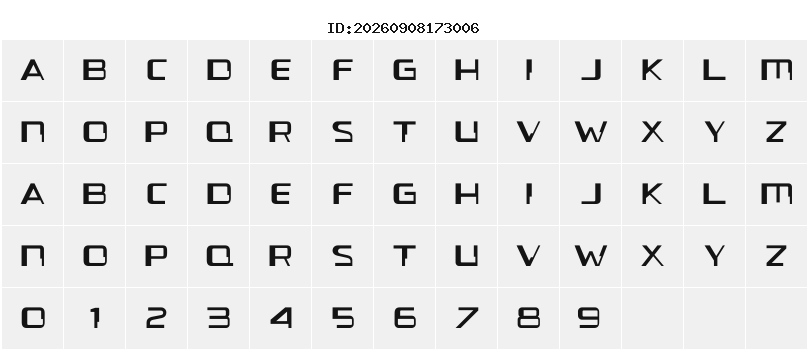
About Voya Nui.ttf
Voya Nui.ttf is a modern, elegant sans-serif font designed for ultimate readability and visual harmony. Perfect for branding, headlines, web design, and print materials.